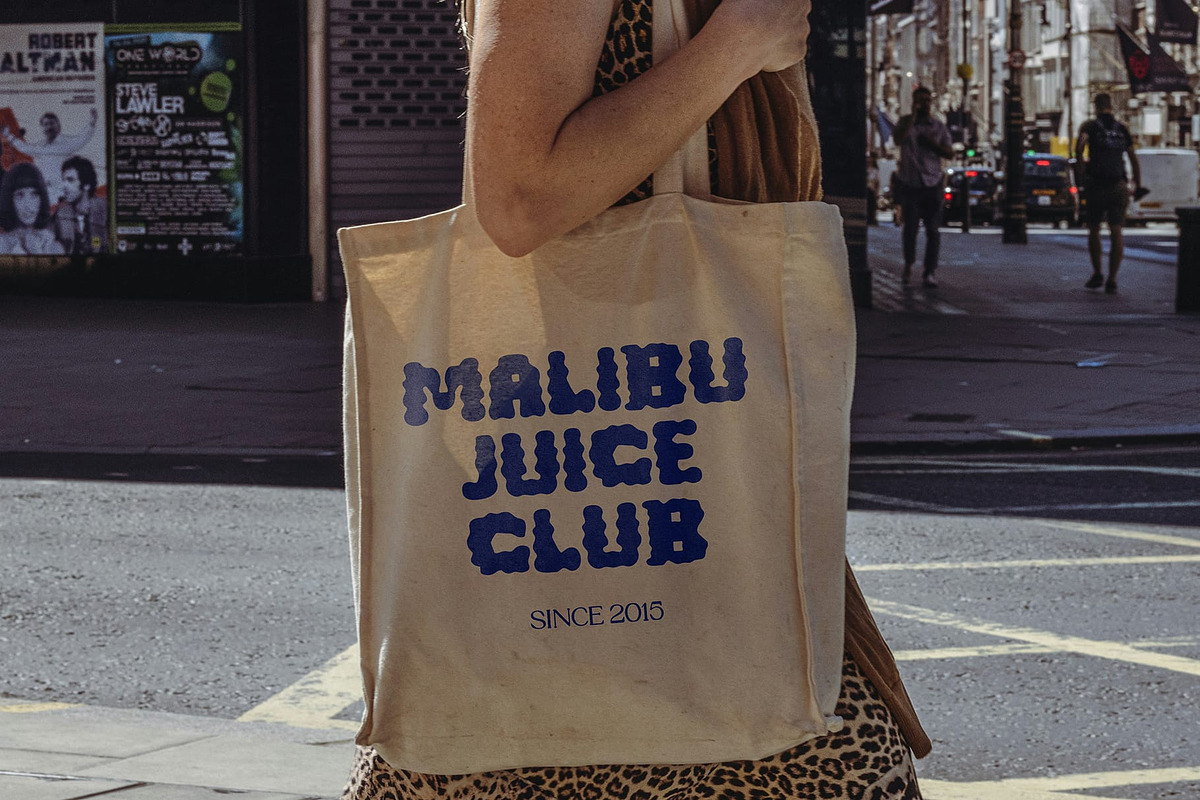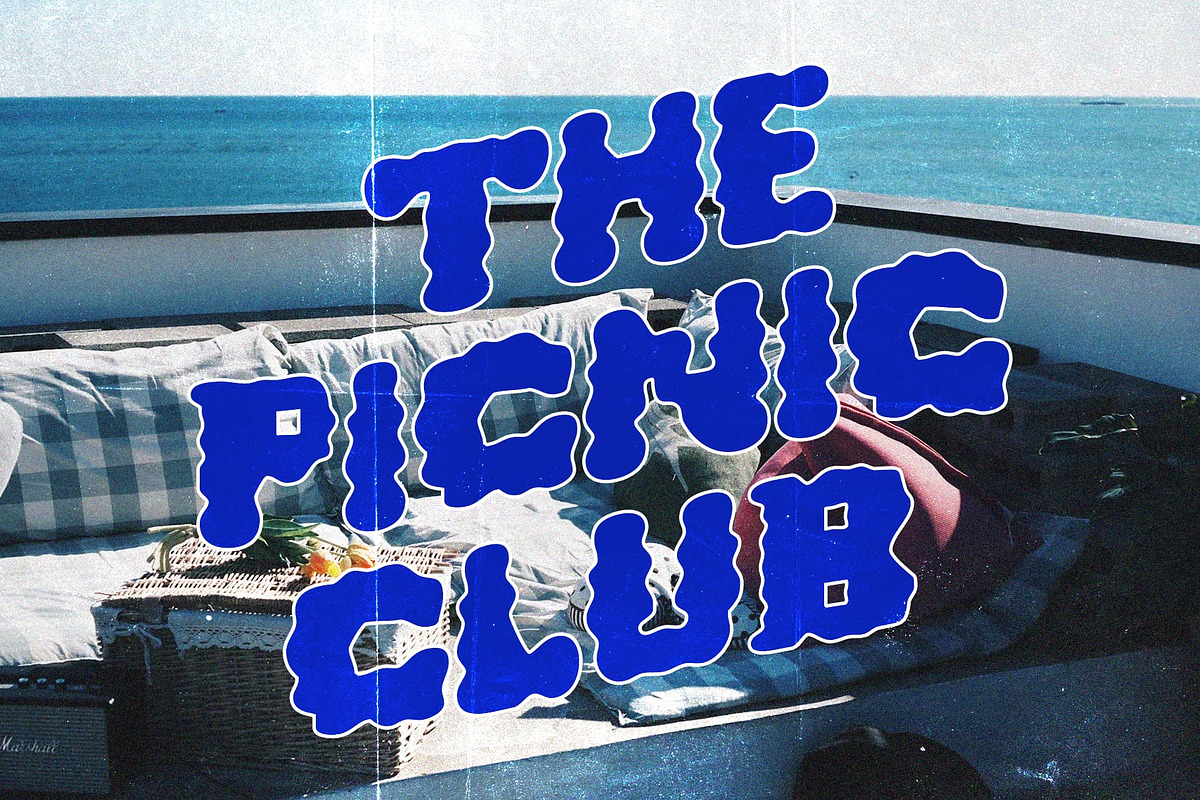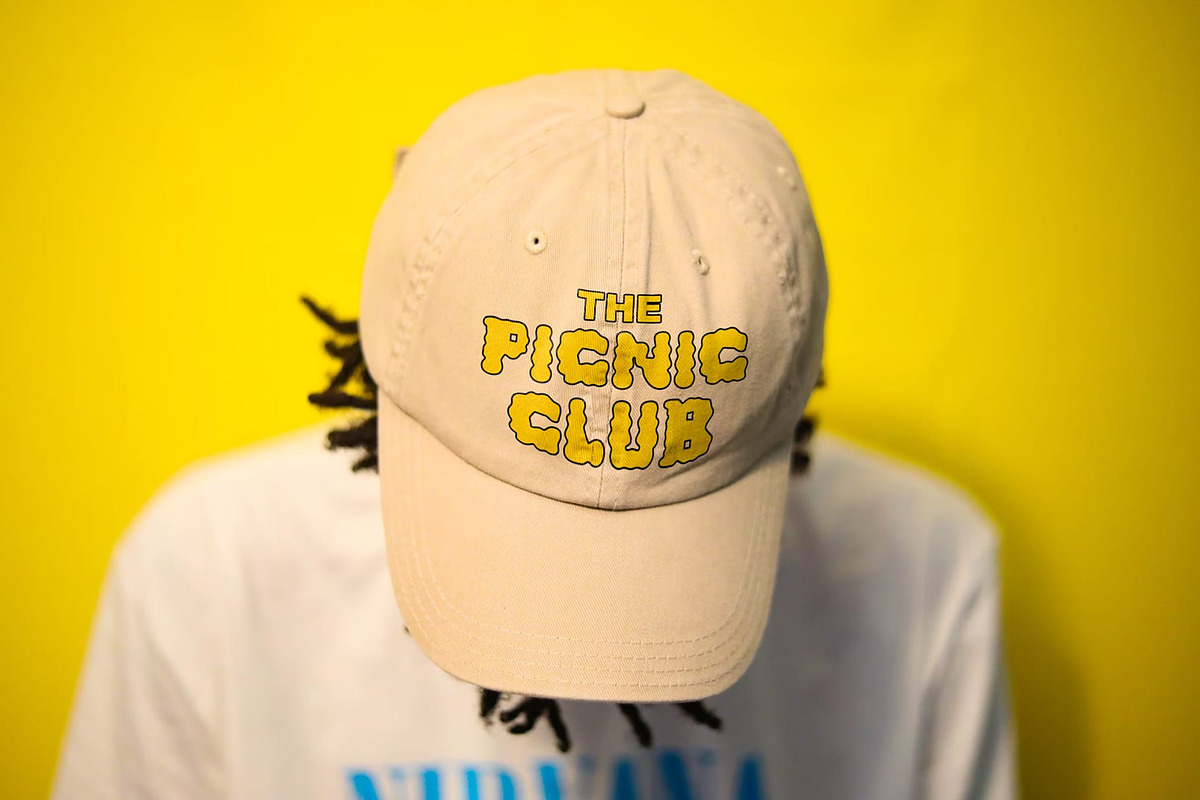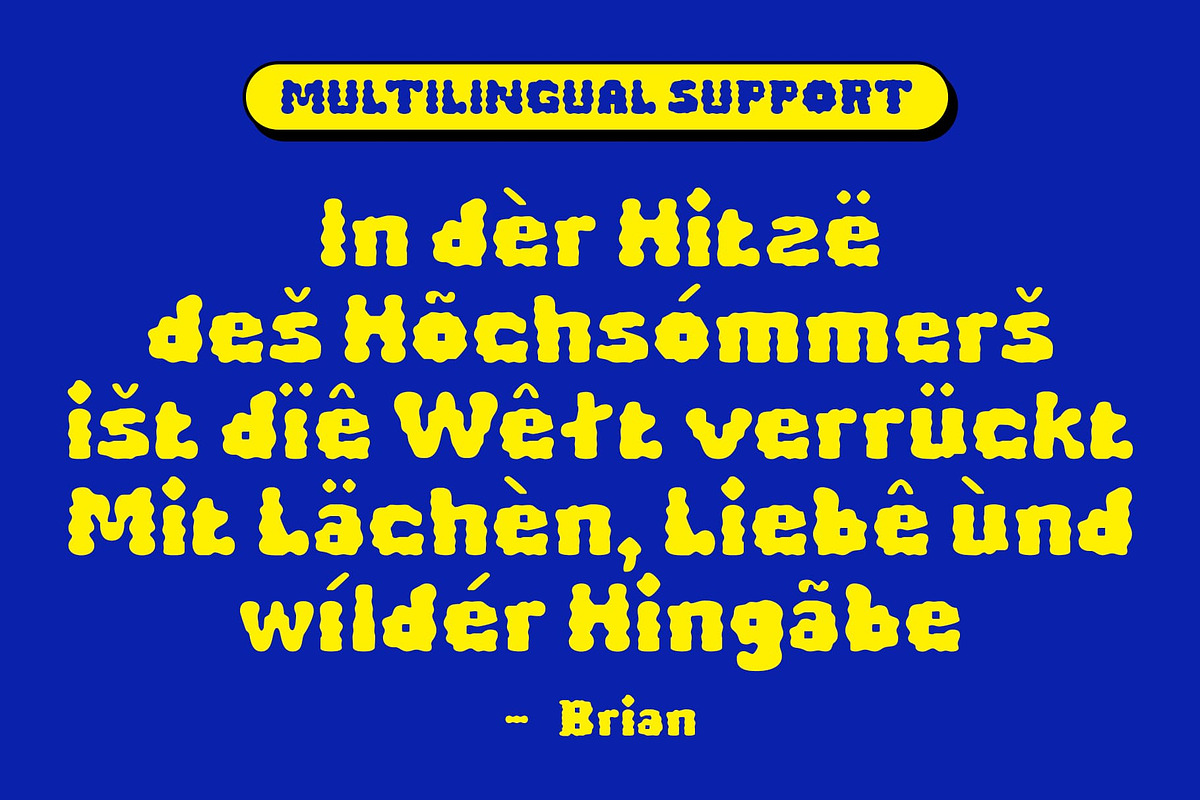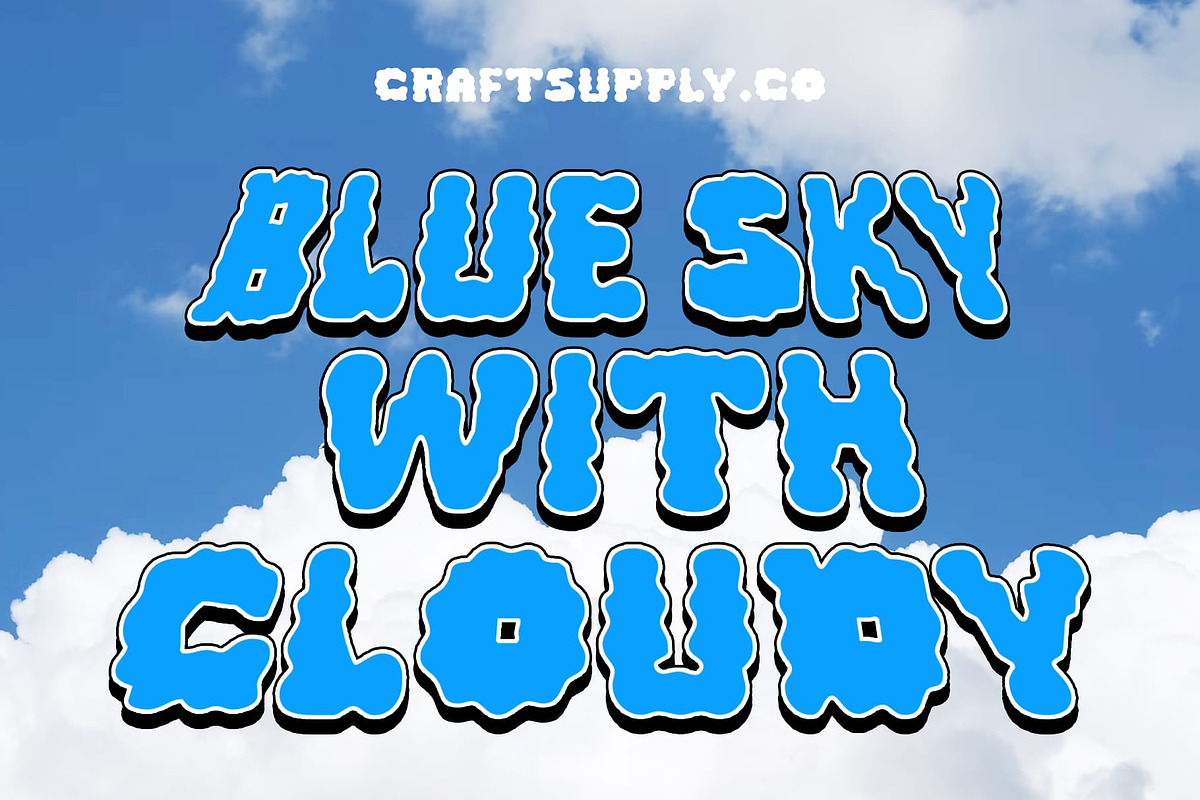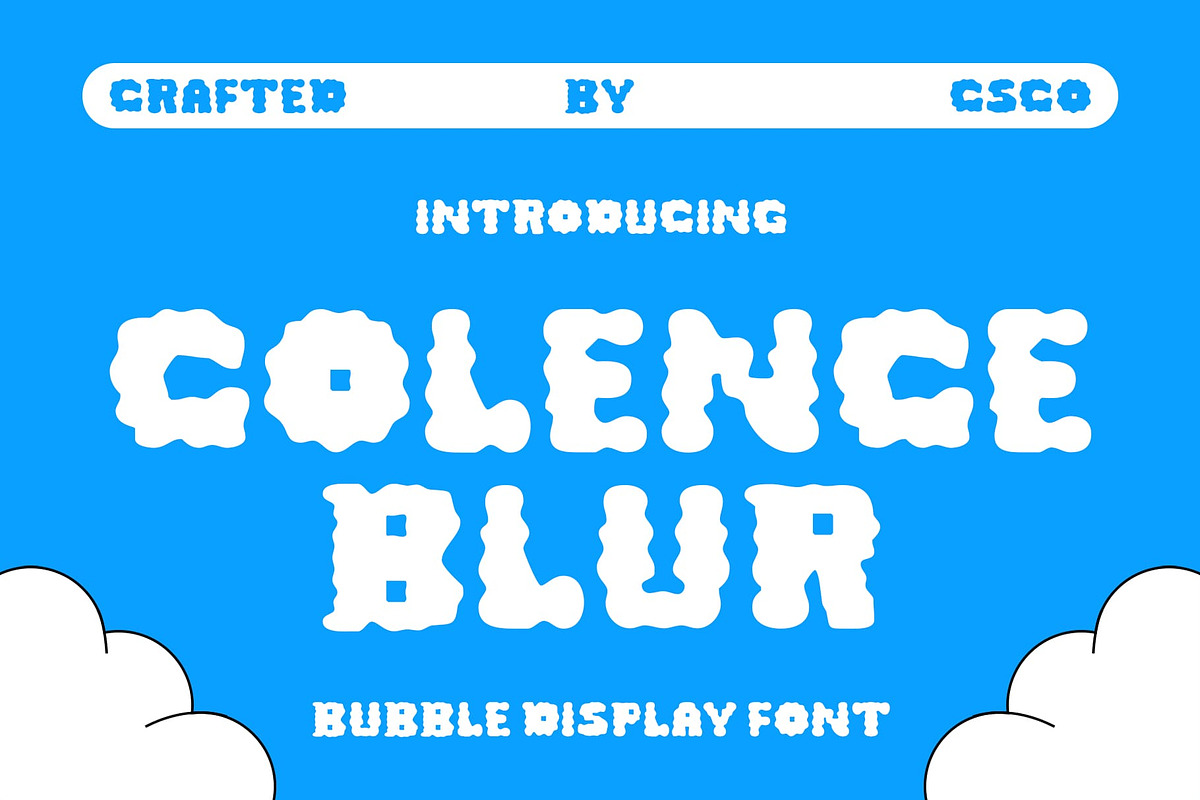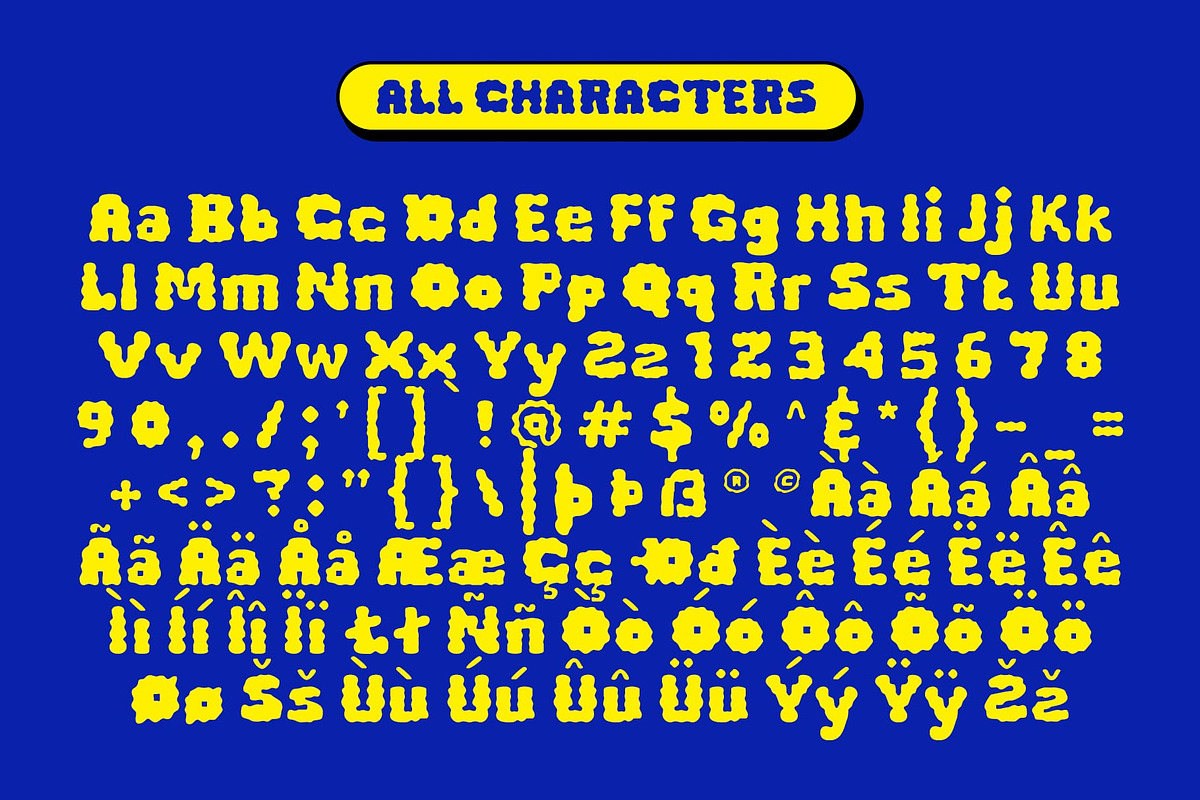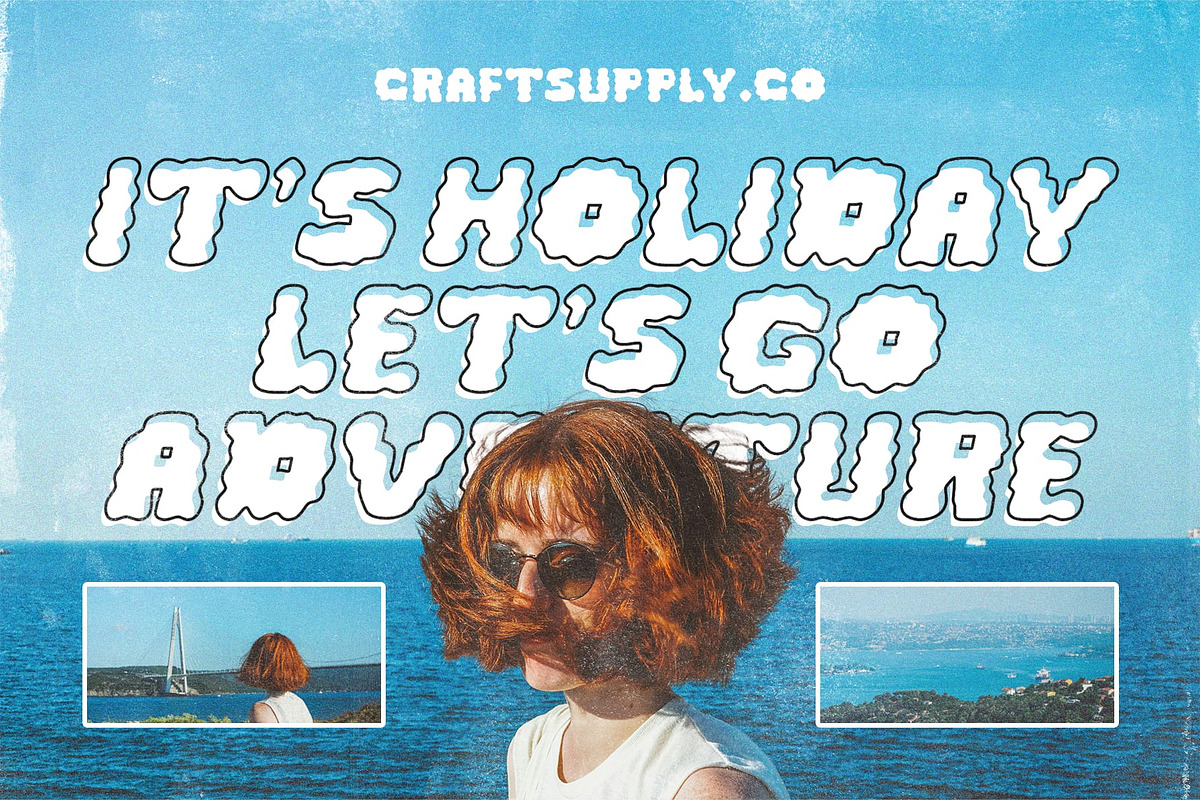
Colence Blur
Colence Blur: Where Clouds Meet Funk
Cloudy Funky Display
Colence Blur is a font with bubble shapes resembling clouds, a unique funky style, and a blur vibe, perfect for unique designs. Its playful and whimsical appearance makes it ideal for a variety of creative projects.
Bubble Shapes Resembling Clouds
With its rounded forms and cloudy appearance, Colence Blur offers a fresh take on display fonts. The bubble shapes and cloud-like elements create a captivating and dynamic look, ideal for posters, branding, and other projects that need a touch of fun.
Perfect for Unique Designs
Whether you’re designing a children’s book cover or creating a website header, Colence Blur is sure to make an impression. Its funky style and cloudy appearance make it perfect for designs that demand attention and convey a sense of creativity and imagination.
Versatile and Easy to Use
Despite its distinctive appearance, Colence Blur is versatile and easy to use. The font works well in both large and small sizes, making it suitable for a variety of applications, from headlines and banners to body text and more. With its blend of bubble shapes and funky style, Colence Blur adds a unique and charming touch to any design.